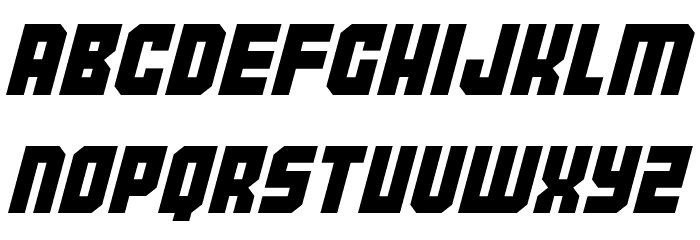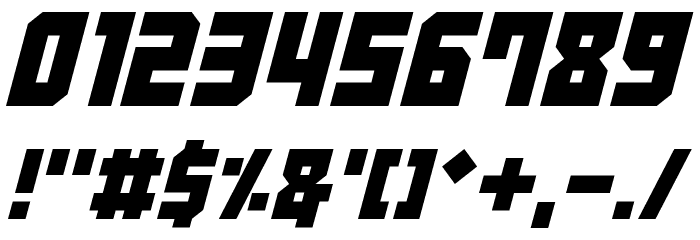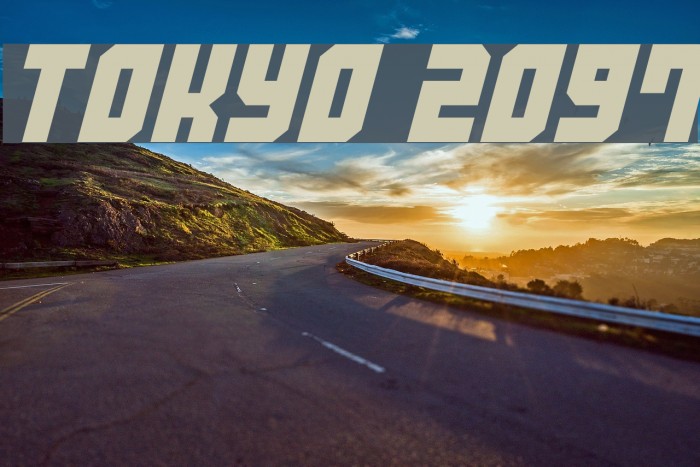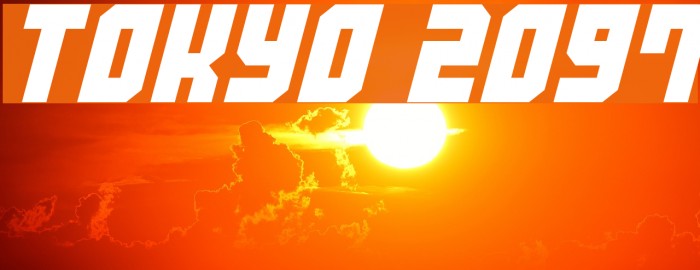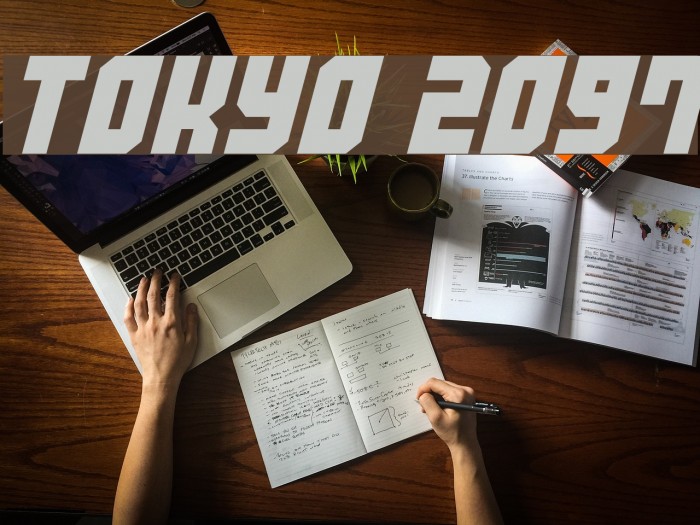
Tokyo 2097 Font
This font features a bold, futuristic design with sharp angles and a strong geometric structure. The characters are uppercase and have a consistent, blocky appearance that conveys a sense of modernity and strength. The numbers and special characters maintain this cohesive style, making it suitable for impactful designs. The font's distinct slant adds a dynamic feel, enhancing its futuristic appeal. The overall appearance is clean and assertive, ideal for projects that require a bold statement.
A bold, futuristic font with sharp angles and a dynamic slant.
- Proposed Projects: Ideal for sci-fi themed projects, technology branding, video game titles, and futuristic posters.
- Overall Style: Futuristic